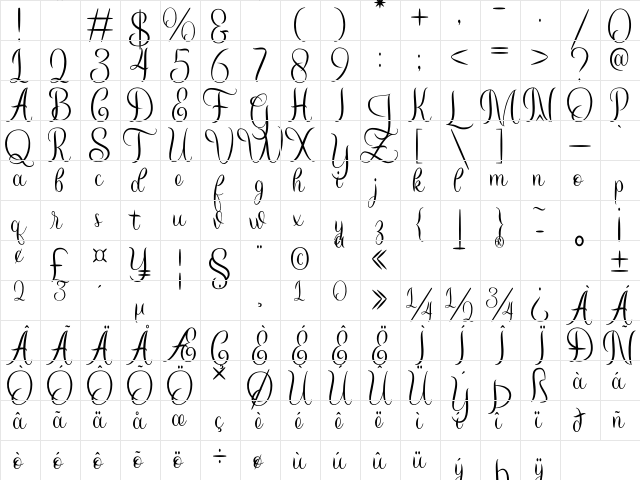
Everloved Regular
Design Context for Everloved Typeface
Everloved is a composed and adaptable typeface that performs quietly and consistently across a wide range of design contexts.
Pro Tip: Use Everloved in both headline and body roles to test its range before committing to a single application.